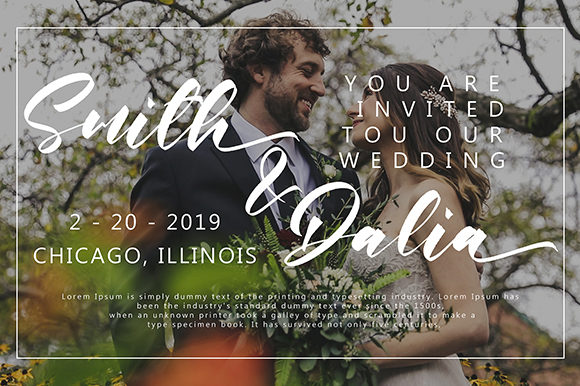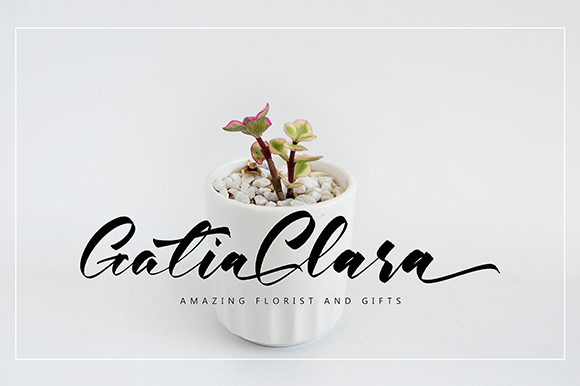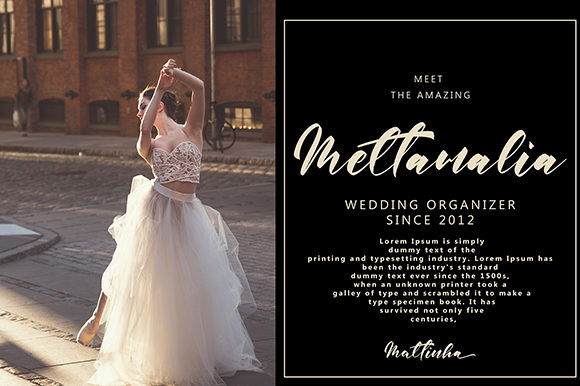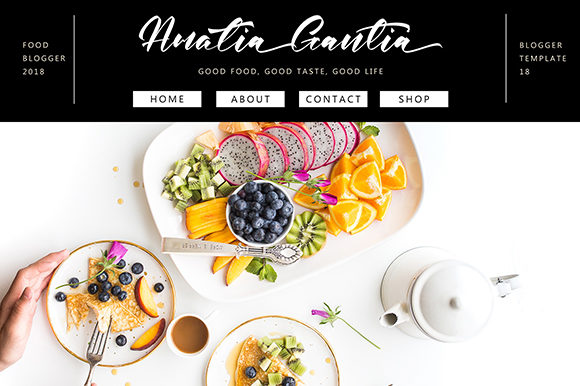
Introduction to Mattinha Font
Mattinha is a romantic, delicate and light handwritten font with incredible elements.
| 👤 Author | Pineungtype & Missinklab |
Mattinha is a romantic, delicate and light handwritten font with incredible elements!
Key Features of Mattinha Font
Why Choose Mattinha Font?